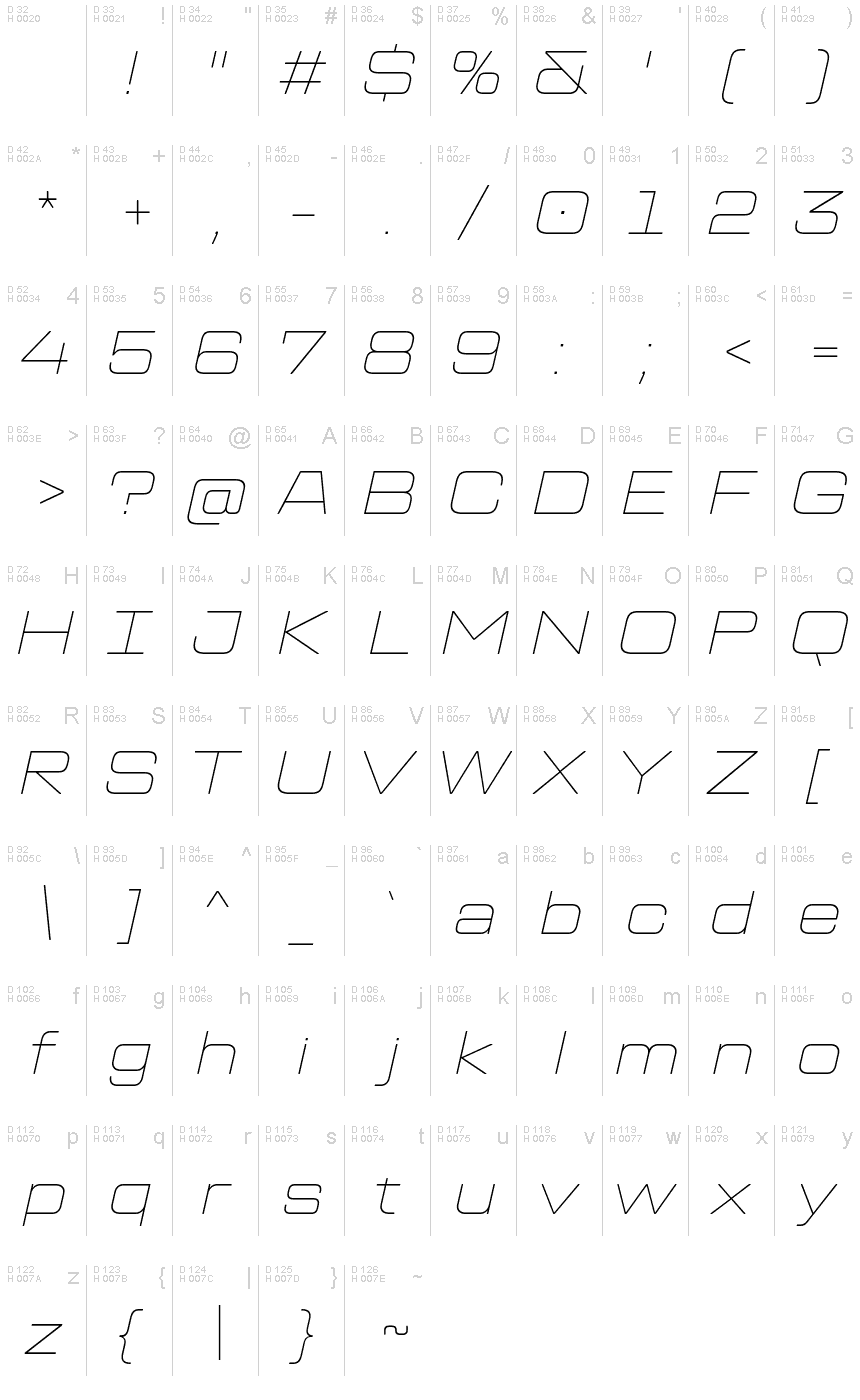
TT Lakes Neue Trl Exp Th It
TT Lakes Neue Exp Th It is a stunning sans serif font that exudes elegance and sophistication. Designed by the renowned TypeType Foundry, this ultra-light and extra-expanded font is perfect for a wide range of projects, from branding to editorial design. Its clean lines and modern look make it suitable for website headers, logos, packaging, posters, and much more. The italicized version of TT Lakes Neue Exp Th It adds a touch of creativity to your designs while still maintaining its sleek appearance. With its unique style and versatility, TT Lakes Neue Exp Th It is sure to make your projects stand out from the crowd.